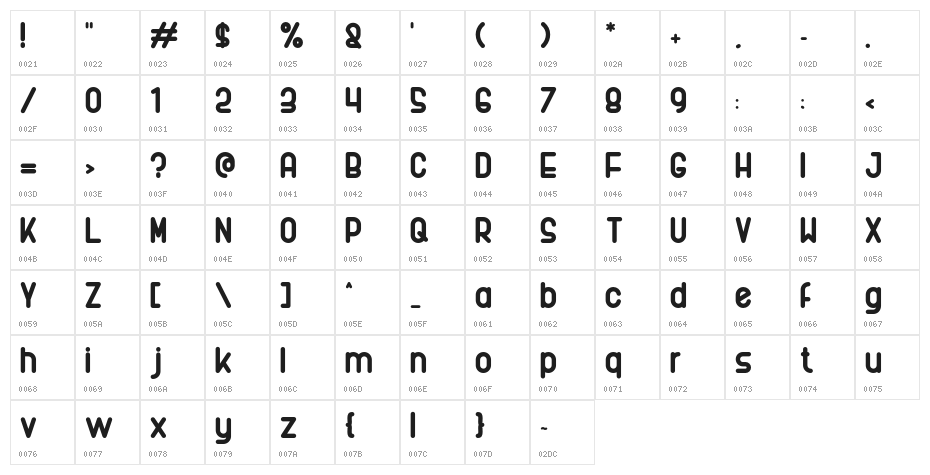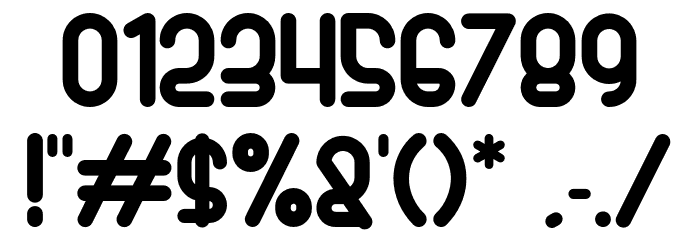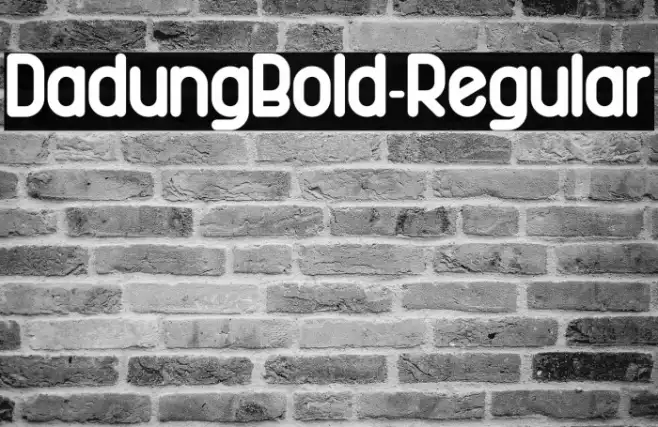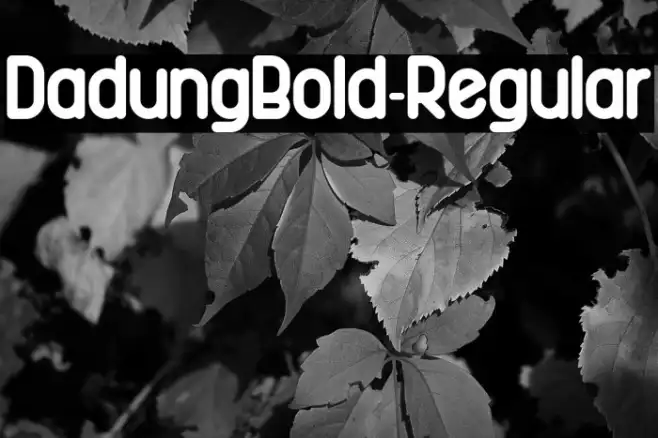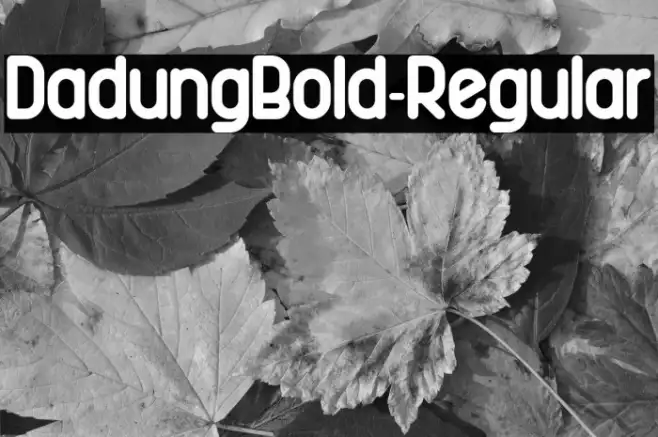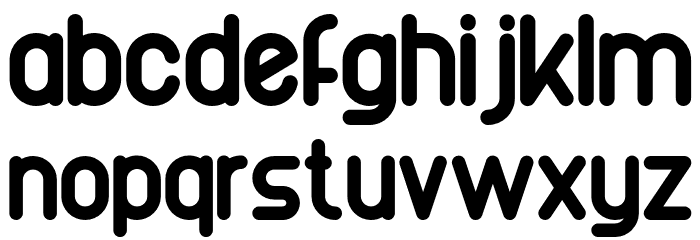
DadungBold-Regular Font
DadungBold-Regular Description
This font features a bold and rounded style, characterized by its thick strokes and smooth curves. The letters are evenly spaced, providing a balanced and cohesive appearance. The uppercase and lowercase letters maintain a consistent width, contributing to a uniform look. The numerals and special characters are designed with the same boldness, ensuring readability and visual harmony across all elements. This font's playful yet sturdy design makes it suitable for a variety of creative applications.
| Proposed Projects | Ideal for branding, packaging, posters, and children's book covers. |